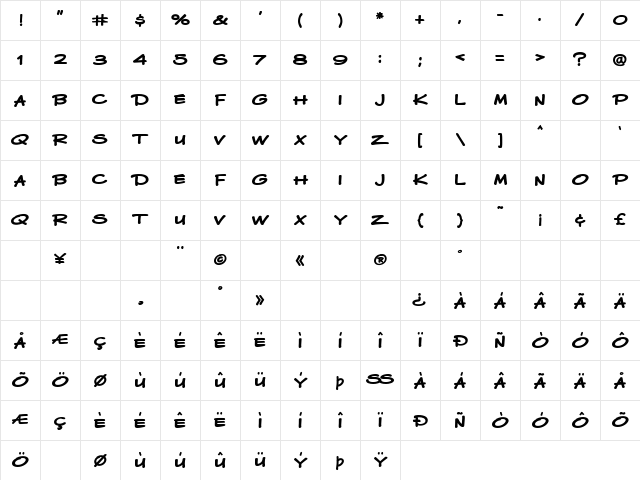
LHF Basher BOLD Regular Free Font
LHF Basher BOLD Regular
Design Context for LHF Basher BOLD
LHF Basher BOLD is a composed and adaptable typeface that performs quietly and consistently across a wide range of design contexts. Its bold stroke weight gives it real presence on the page.
Pro Tip: Use LHF Basher BOLD in both headline and body roles to test its range before committing to a single application.